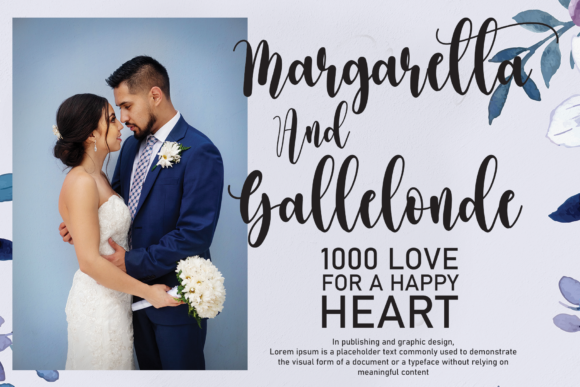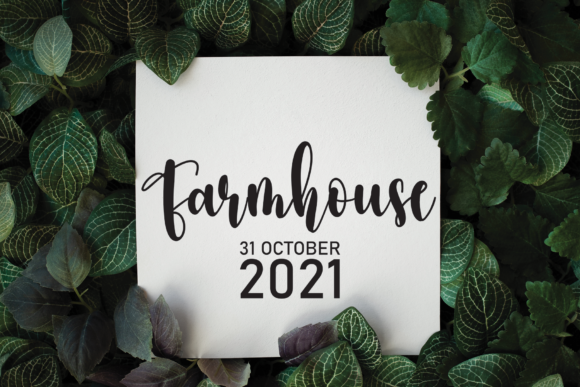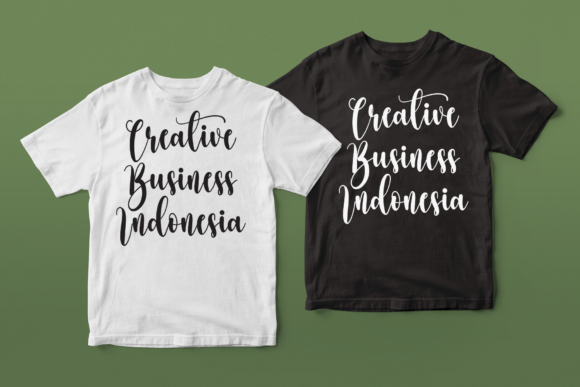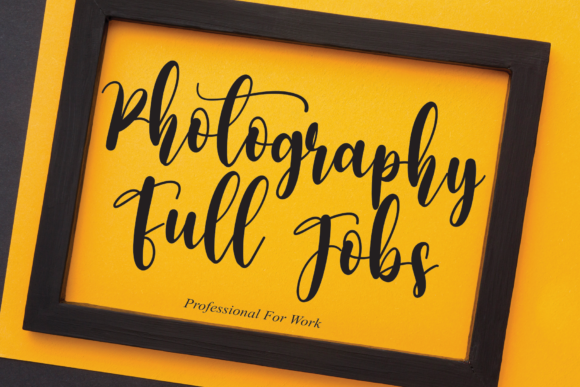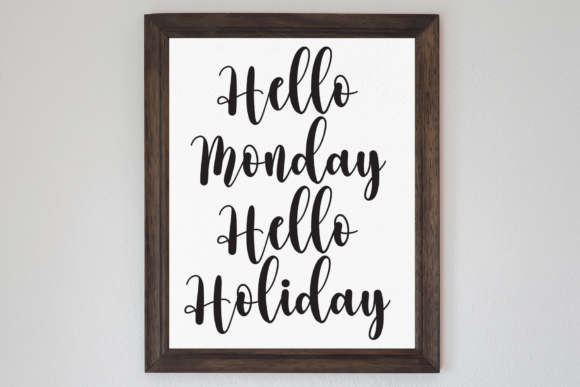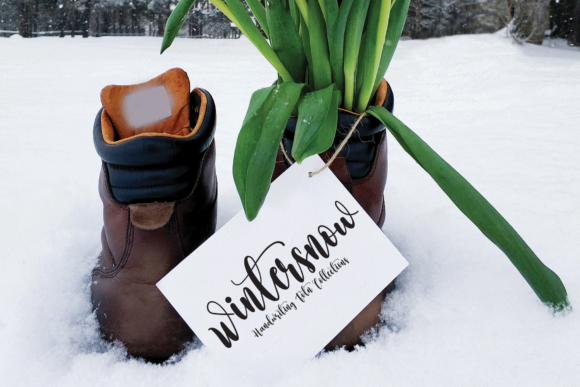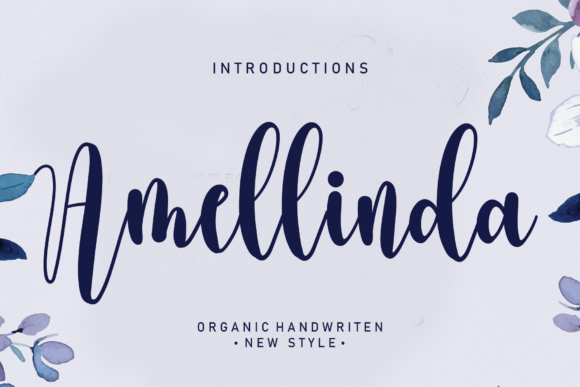
Introducing Amellinda Font: The Playful Script Font to Elevate Your Designs
Are you tired of using the same old fonts in your designs? Do you want to add a touch of personality and whimsy to your creative projects? Look no further than Amellinda Font, a lovely script font that is sure to make your designs stand out. In this article, we’ll take a closer look at Amellinda Font, its features, and how you can use it to take your designs to the next level.
What is Amellinda Font?
Amellinda Font is a beautiful script font that features charming, playful characters that seem to dance along the baseline. Its unique and elegant design makes it perfect for a variety of creative projects, from branding and advertising to packaging and stationery. With its flowing lines and curly flourishes, Amellinda Font is sure to add a touch of sophistication and whimsy to any design.
Key Features of Amellinda Font
So, what makes Amellinda Font so special? Here are just a few of its key features:
- Playful characters: Amellinda Font features playful characters that seem to dance along the baseline, giving it a lively and energetic feel.
- Charming ligatures: The font includes charming ligatures that add a touch of elegance and sophistication to your designs.
- Unique flourishes: Amellinda Font features unique flourishes that add a touch of whimsy and personality to your designs.
- Easy to read: Despite its playful design, Amellinda Font is easy to read, making it perfect for use in a variety of creative projects.
How to Use Amellinda Font in Your Designs
Amellinda Font is a versatile font that can be used in a variety of creative projects. Here are just a few ideas to get you started:
- Branding and advertising: Use Amellinda Font to create eye-catching logos, advertisements, and marketing materials that stand out from the crowd.
- Packaging design: Add a touch of personality to your packaging designs with Amellinda Font, perfect for product labels, tags, and packaging inserts.
- Stationery: Use Amellinda Font to create beautiful stationery sets, including invitations, greeting cards, and letterhead.
- Digital design: Amellinda Font is perfect for use in digital designs, including social media graphics, blog posts, and website headers.
Tips for Getting the Most Out of Amellinda Font
Here are a few tips for getting the most out of Amellinda Font:
- Experiment with different sizes: Amellinda Font looks great in a variety of sizes, from large headings to smaller body text.
- Pair it with other fonts: Try pairing Amellinda Font with other fonts to create a unique and interesting design.
- Use it consistently: Use Amellinda Font consistently throughout your design to create a cohesive and professional look.
Amellinda Font is a beautiful and versatile script font that is sure to elevate your designs. With its playful characters, charming ligatures, and unique flourishes, it’s perfect for a variety of creative projects. Whether you’re a designer, crafter, or DIY enthusiast, Amellinda Font is a great addition to your font collection. So why not give it a try and see how it can take your designs to the next level?
- Is Amellinda Font easy to read? Yes, Amellinda Font is easy to read, making it perfect for use in a variety of creative projects.